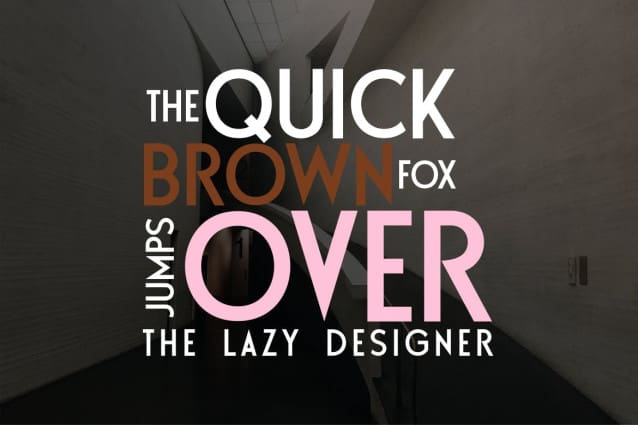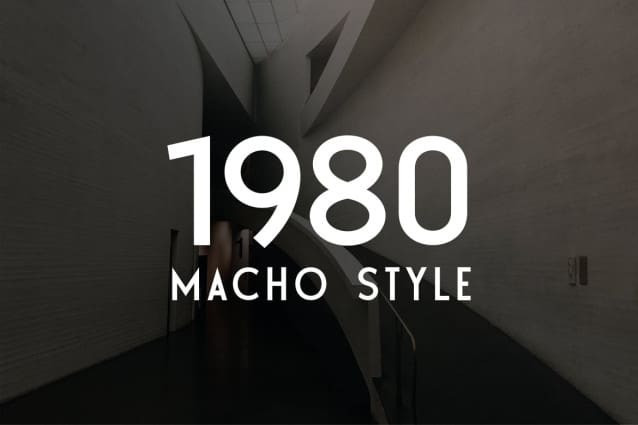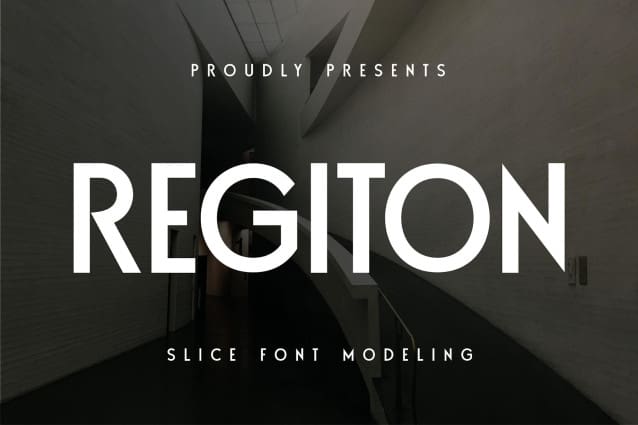
Regiton Font
Regiton Font, with each stroke, the sharpness and vigor characteristic of this font are amplified, reflecting a robust character that is unique to you. This versatile font brings tabloid articles to life, amplifies the essence of product descriptions, and gives your brand a powerful identity. Discover the typography revolution with this font. I appreciate your strength, I appreciate you.